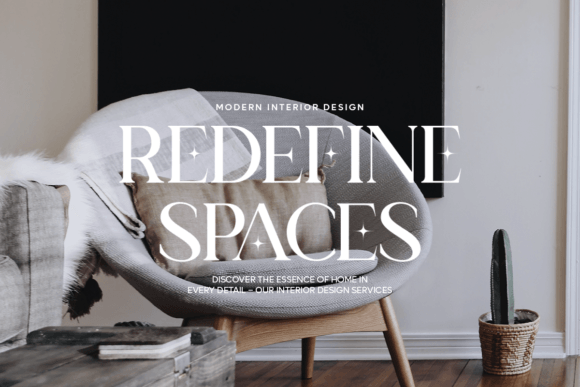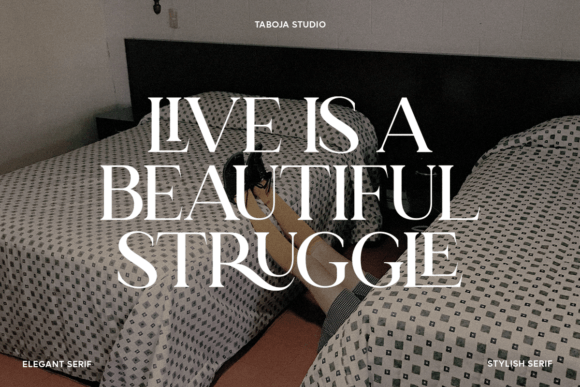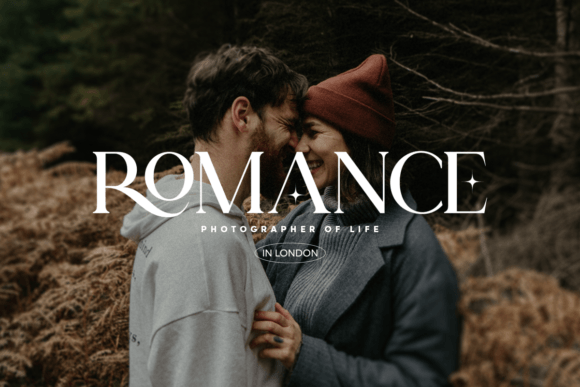
Talea Font
Talea Serif Font Designed for versatility, our Elegant Display Serif Font is a sophisticated choice for a myriad of design projects. The judicious use of thick and thin strokes imparts a timeless elegance, making it ideal for branding, editorial layouts, and various creative endeavors.
Elevate your designs with the multitude of possibilities provided by our Elegant Display Serif Font. Its meticulous design, exquisite swash alternates, and diverse ligatures make it the perfect companion for a wide range of creative projects, ensuring your work radiates sophistication and charm.